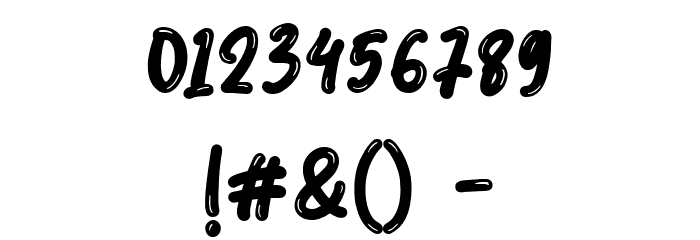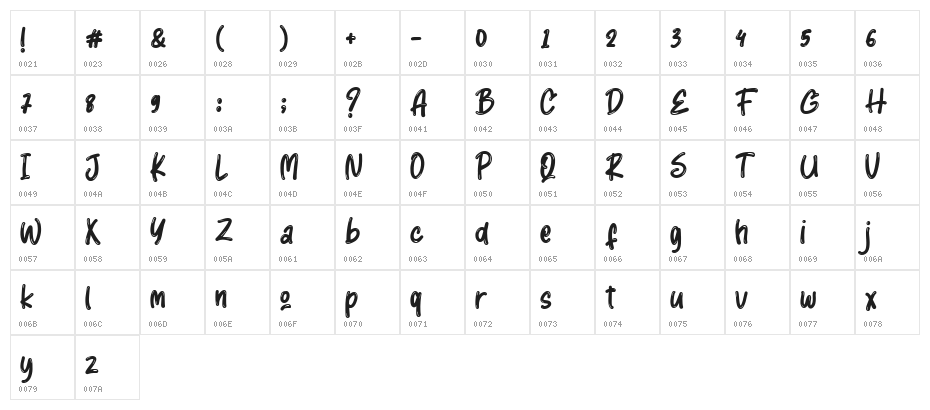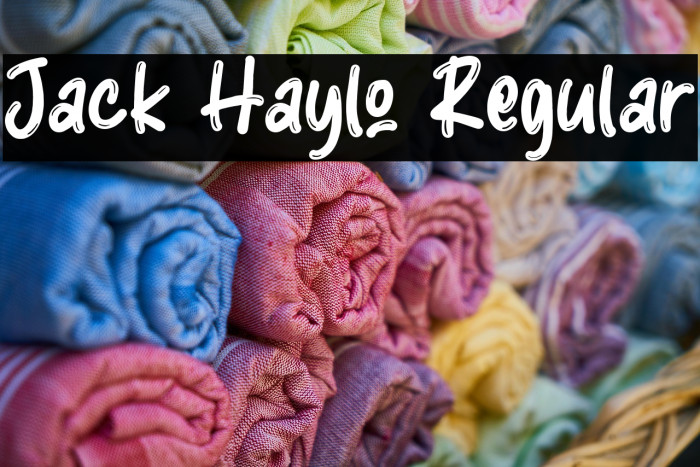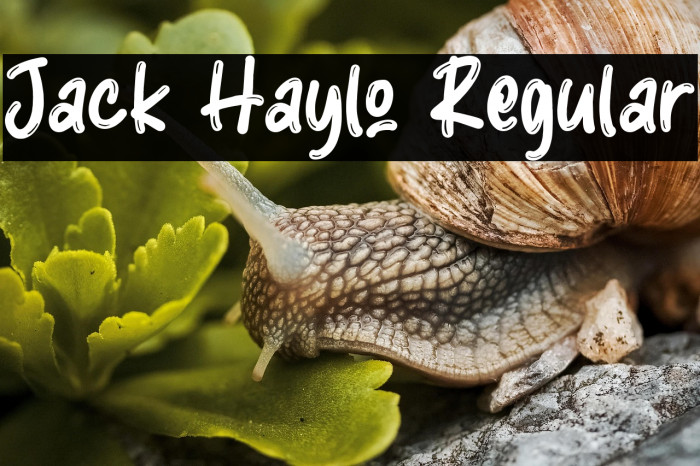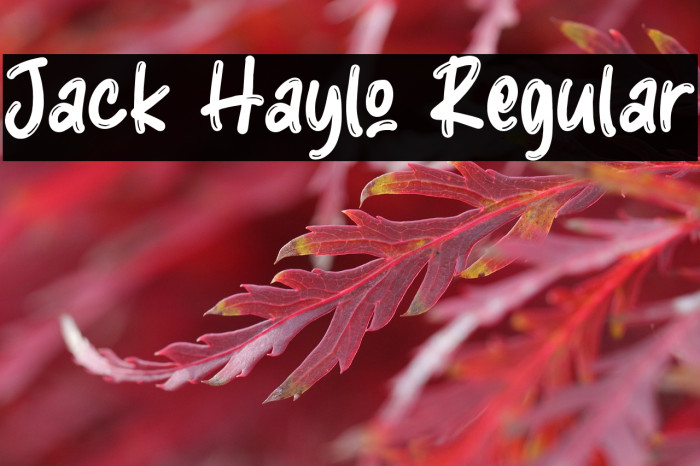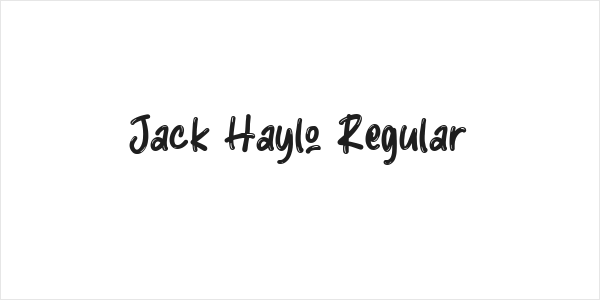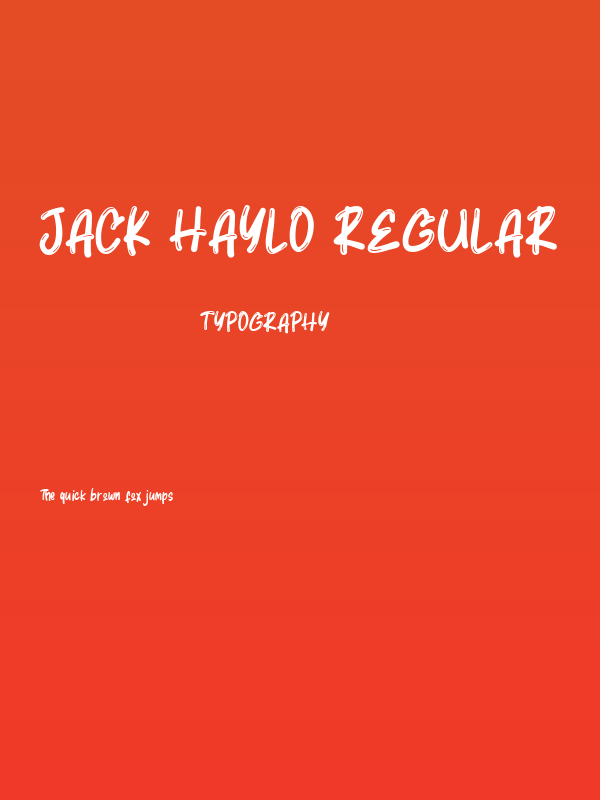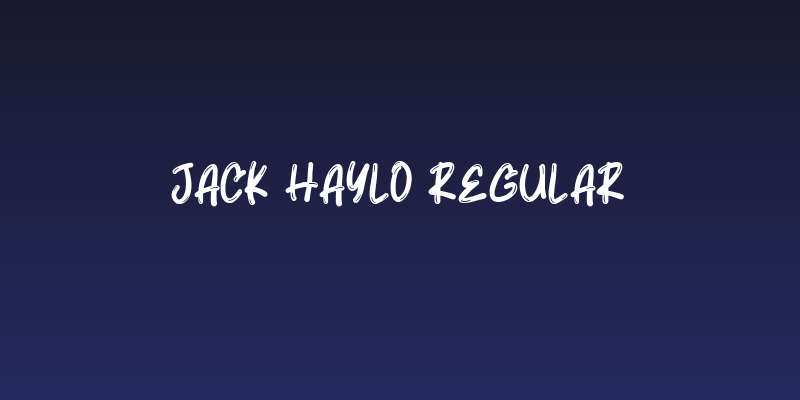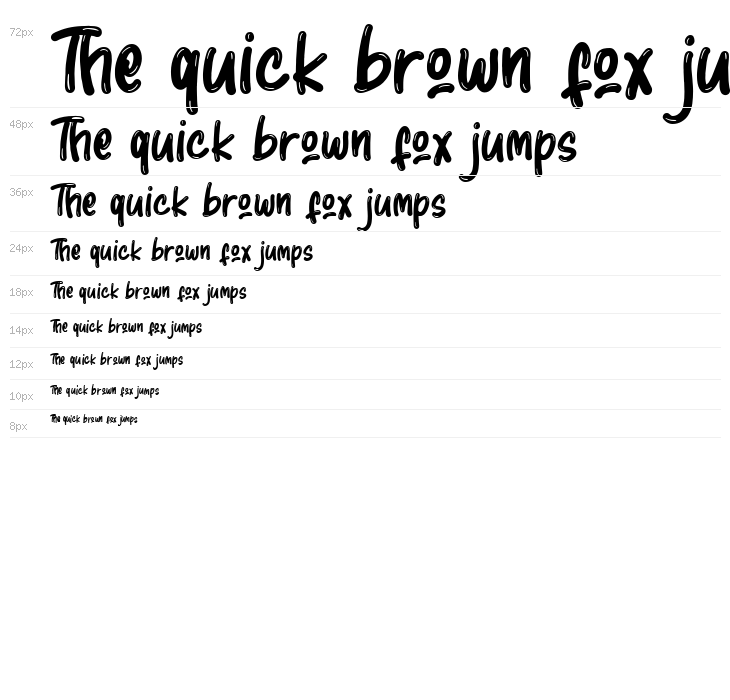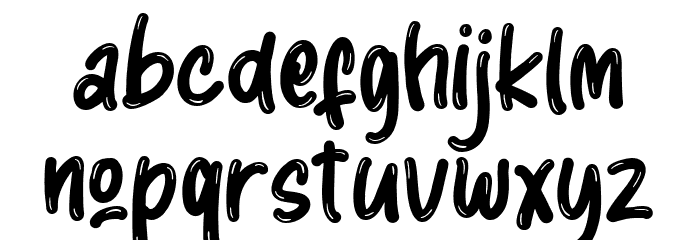
Jack Haylo Regular Font
Jack Haylo Regular Description
This font features a bold and playful handwritten style, characterized by its thick strokes and rounded edges. The letters have a casual and friendly appearance, with a slight slant that adds a dynamic feel. The uppercase and lowercase letters maintain a consistent style, while the numerals and special characters complement the overall look. The font's design is both approachable and energetic, making it suitable for projects that require a touch of personality and flair.